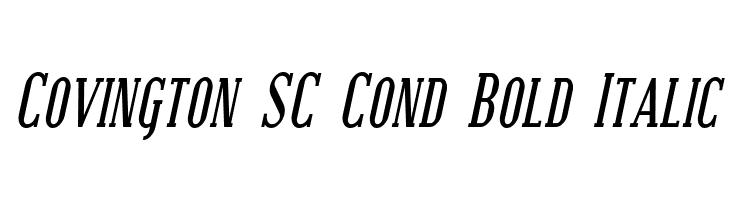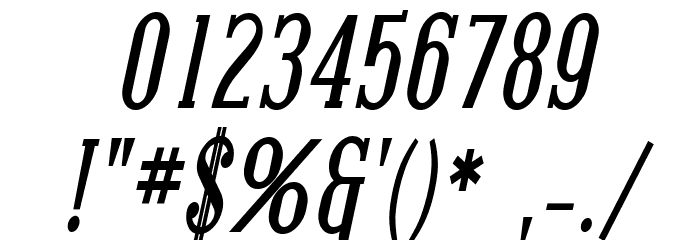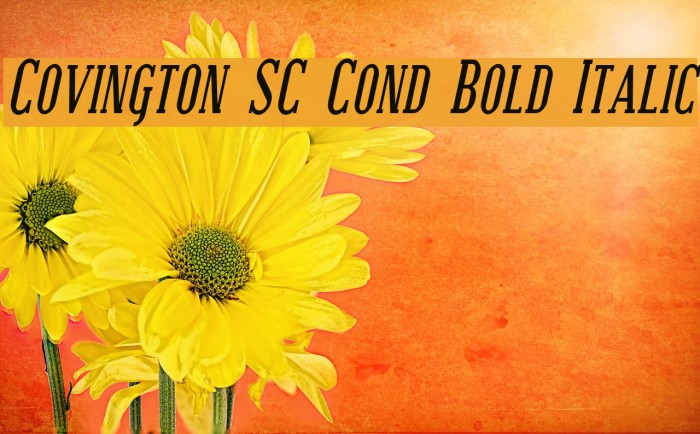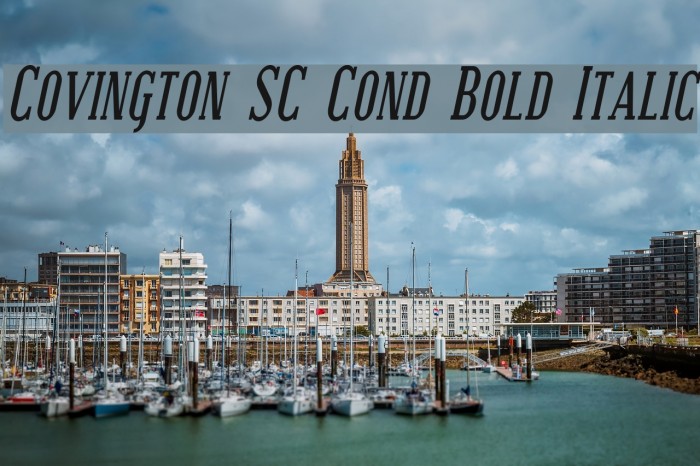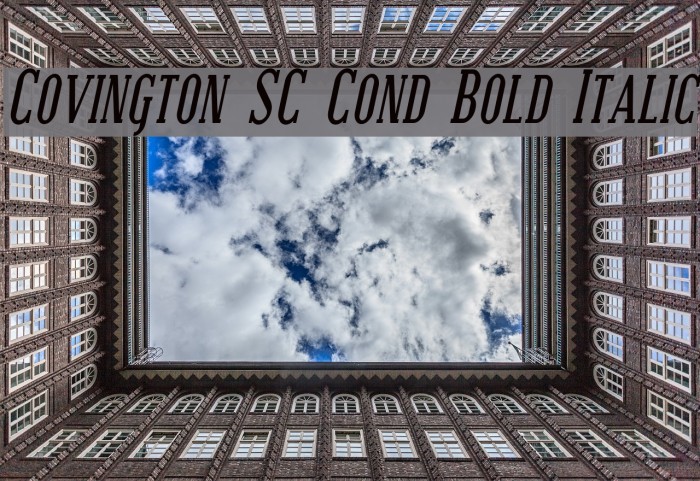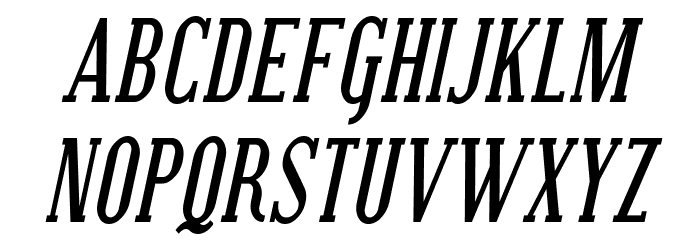
Covington SC Cond Bold Italic Font
Covington SC Cond Bold Italic Description
This font features a bold and italic style with a condensed width, giving it a strong and dynamic appearance. The characters are tall and narrow, with a slight slant that adds a sense of movement and urgency. The strokes are thick, providing a high contrast that enhances readability and visual impact. The overall design is modern and sleek, making it suitable for attention-grabbing headlines and titles. The spacing between characters is tight, which complements the condensed nature of the font, allowing for efficient use of space without sacrificing legibility.
A bold, italic, and condensed font with high contrast and tight spacing from Serif fonts.
- Proposed Projects: Ideal for magazine headlines, posters, advertising, and branding projects that require a bold and modern look.
- Character Spacing: Tight